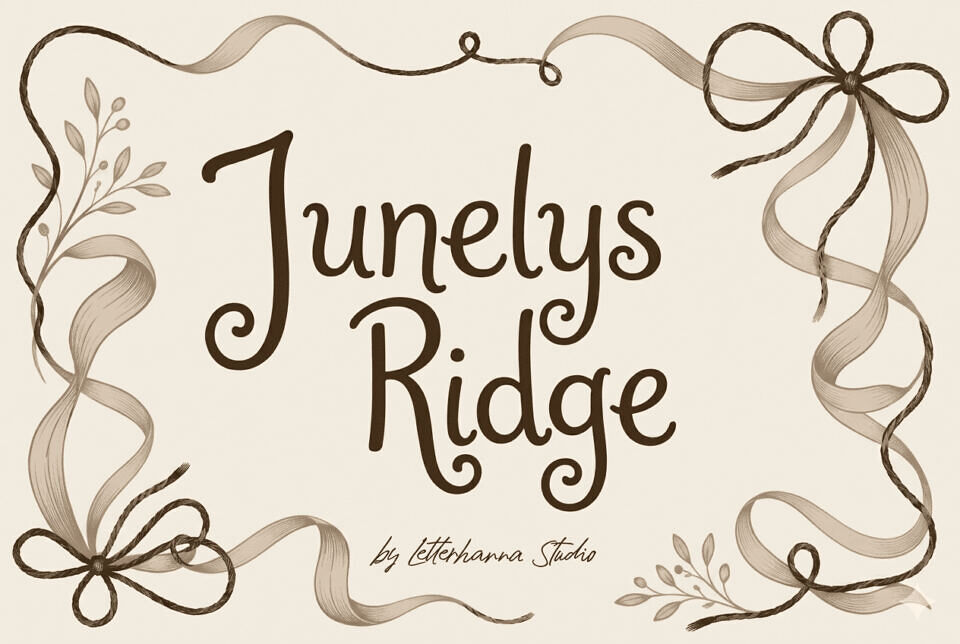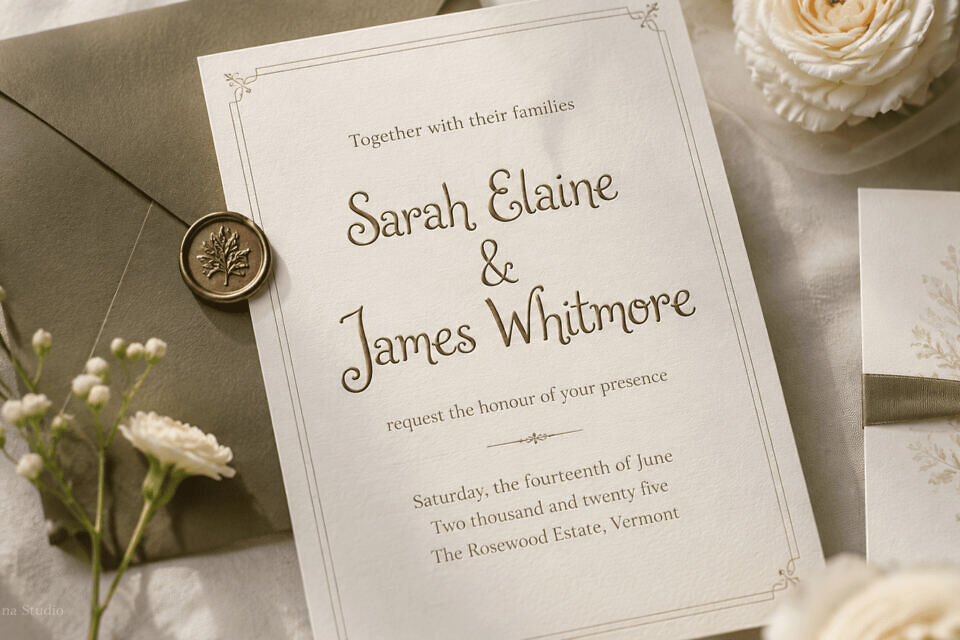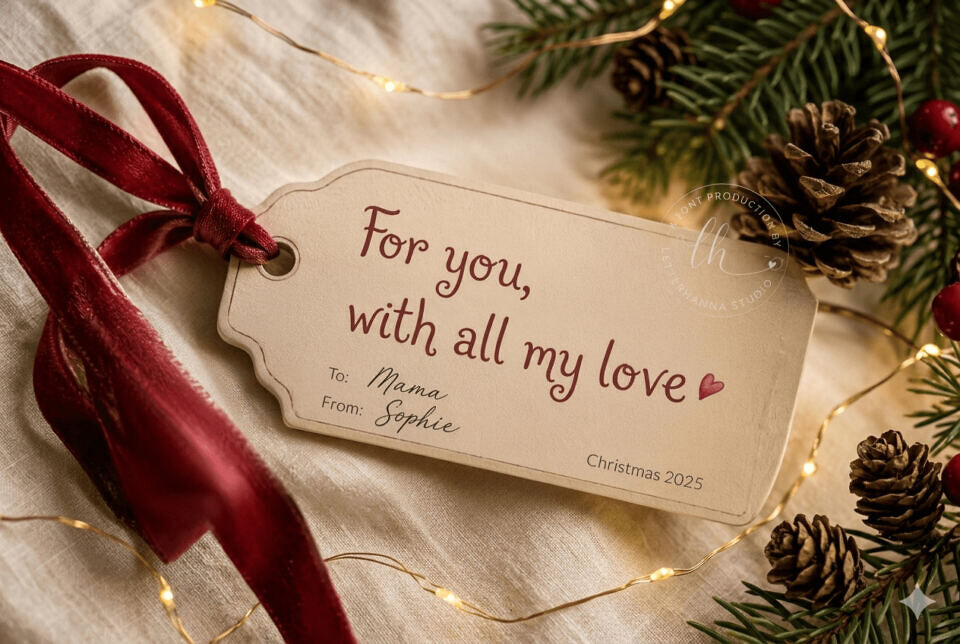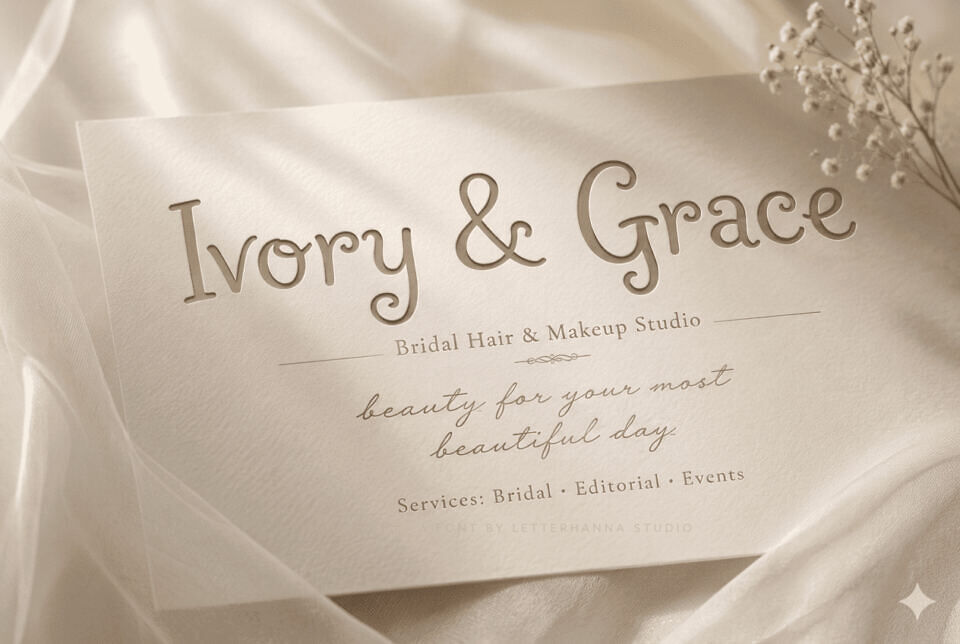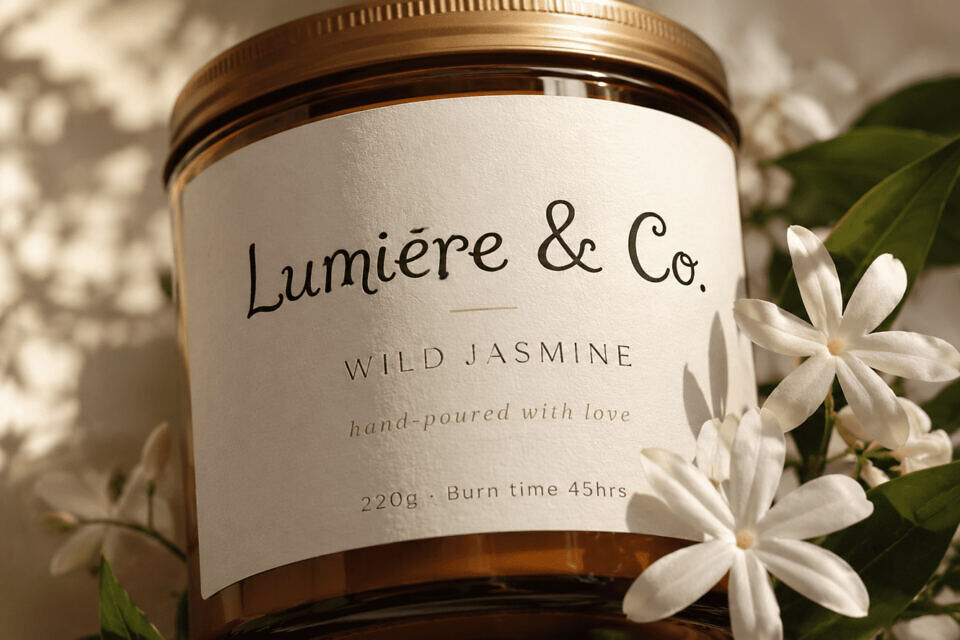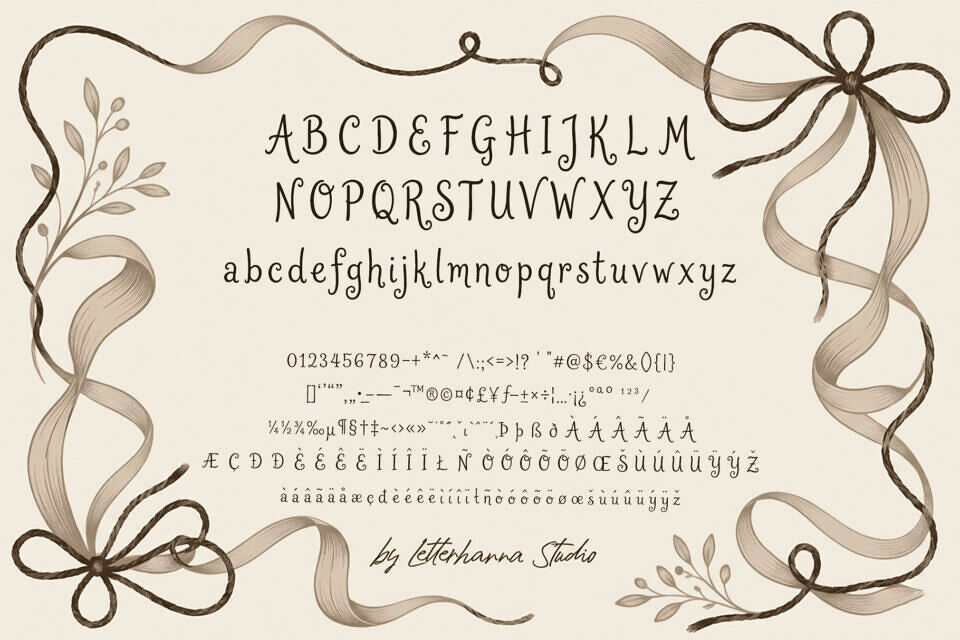
To bring your design together, a single element stands out: the font. Junelys Ridge, a elegant script font, flows like ink and adds sophistication. With its balanced letterforms and swirling swashes, it’s perfect for meaningful designs like wedding invitations and luxury packaging.
It pairs well with clean fonts and scales seamlessly, making it ideal for various projects, from social media to large prints, without losing its charm.